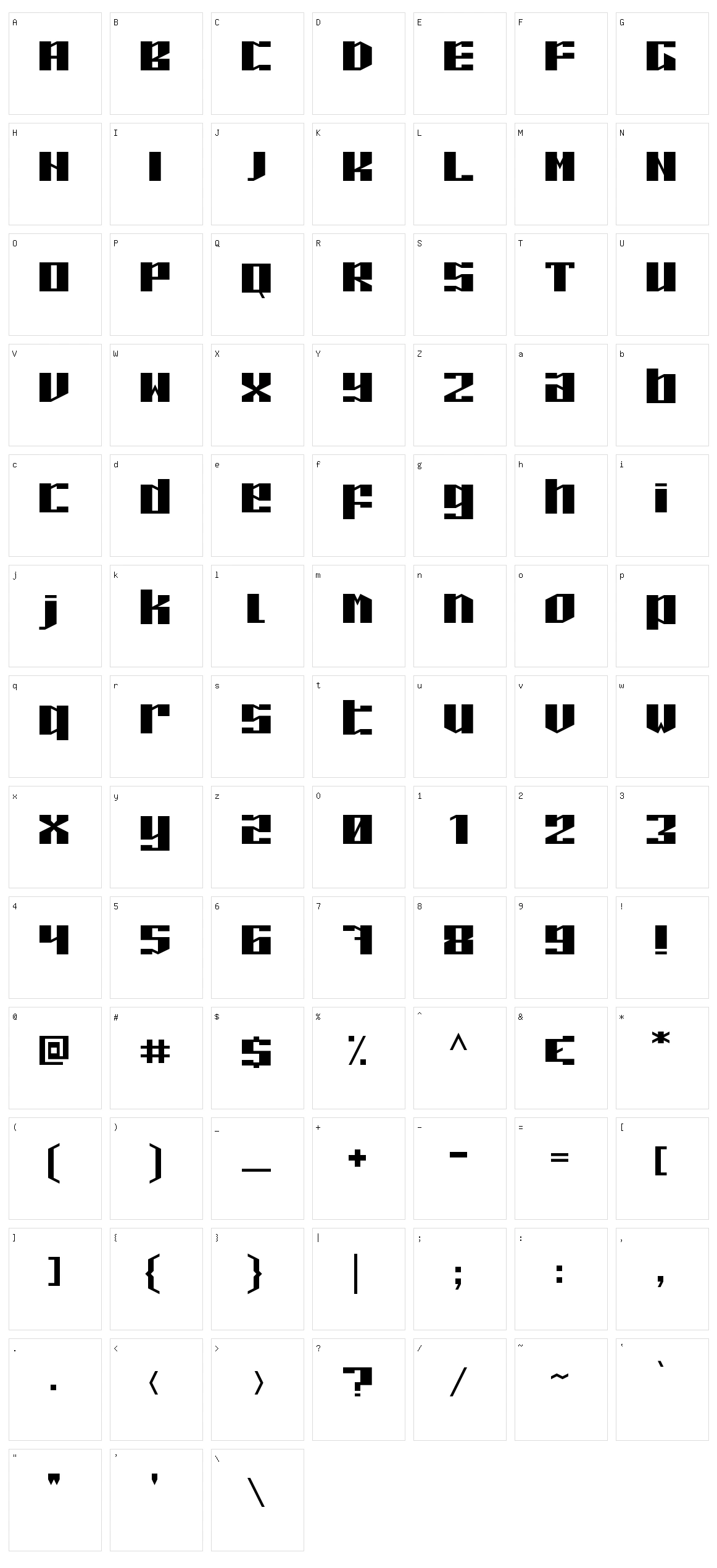
The free font Piloton is carefully designed by Aaron Amar, showcasing a thoughtful balance of creativity and usability and falls under the Square font style. When you download the ZIP file, it contains only 6.99 KB of font files, making it lightweight and quick to download. Please review the license details below to understand permitted usage and distribution rights. If license information is not available, we recommend using this font for personal projects only or contacting the author directly for commercial usage permissions.